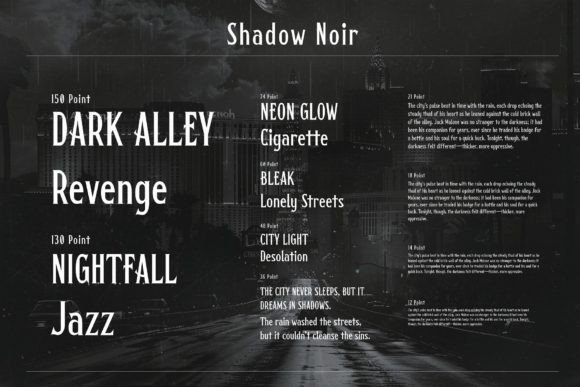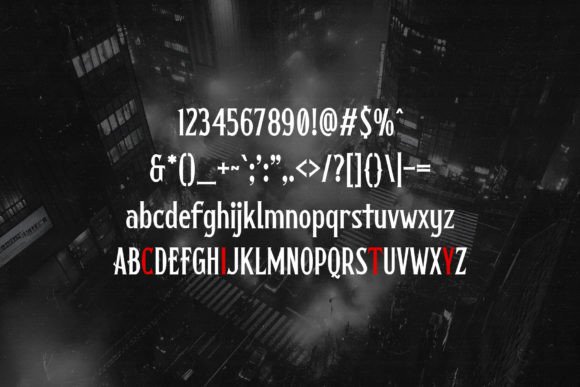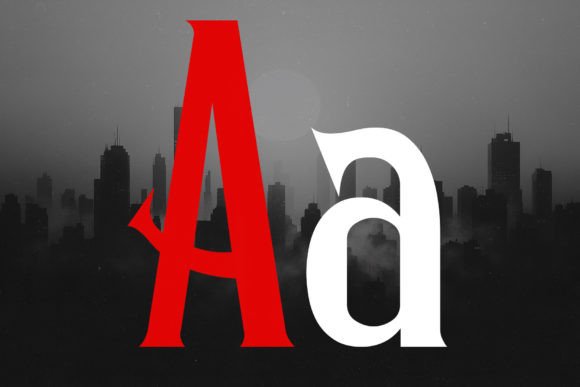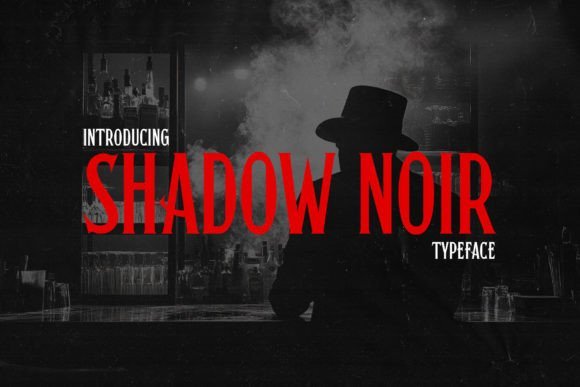
Introduction to Shadow Noir Font
Introducing Shadow Noir, where elegance meets intrigue.
This sharp serif typeface is crafted for those who seek to make a bold statement with an air of mystery With its razor-sharp lines and refined curves, Shadow Noir embodies sophistication with a hint of danger, perfect for projects that demand attention and leave a lasting impression.
Key Features of Shadow Noir Font
Why Choose Shadow Noir Font?
Shadow Noir Font offers exceptional quality and versatility, making it a valuable addition to your design toolkit. Whether you’re creating for personal projects or commercial use, Shadow Noir Font delivers professional results.